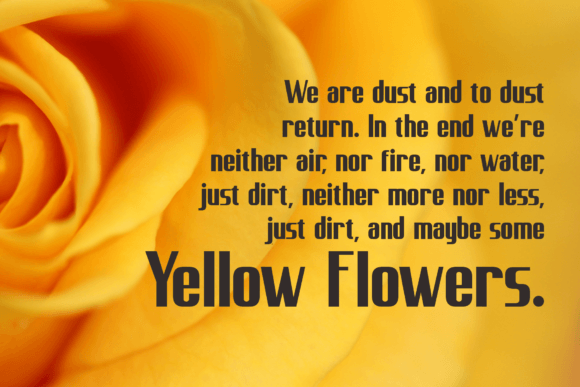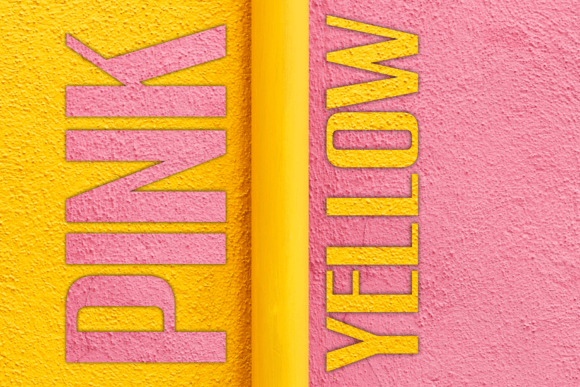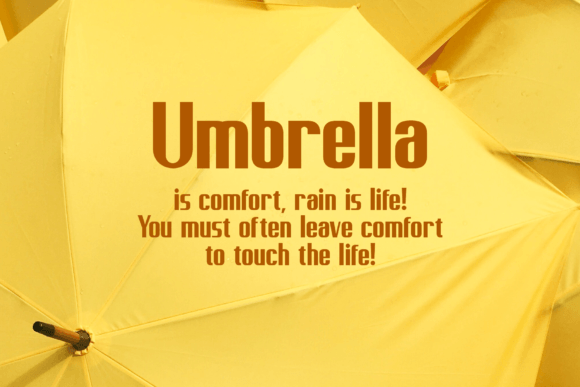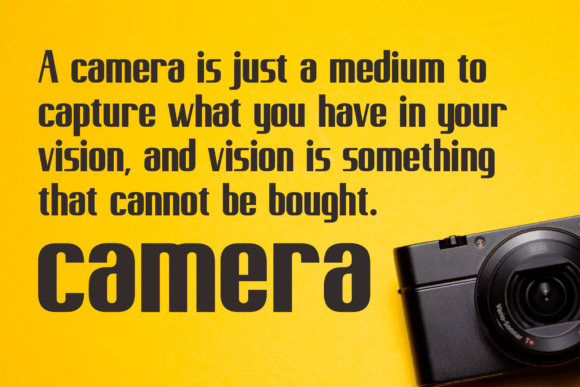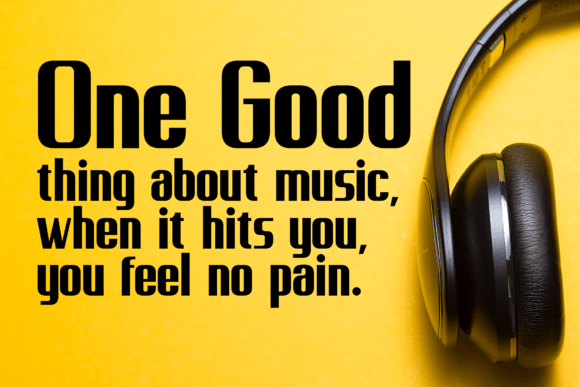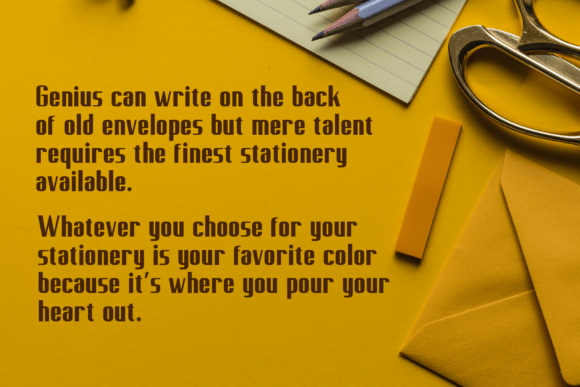
Introduction to La Taverna Font
You’ve spent hours brainstorming ideas for your next design project, pouring over inspiration boards and sketching out concepts. But the moment of truth arrives when you need to select the perfect font to bring your vision to life. That’s where La Taverna Font comes in – a stunning, elegant sans serif font that elevates any creative project with its high-quality design.
Imagine having access to a versatile design resource that can seamlessly integrate into your designs, from logos and branding materials to digital products and print materials. La Taverna Font offers a transparent background, making it perfect for backgrounds and overlays, and is available for free download, making it a valuable addition to any designer’s toolkit.
Key Features of La Taverna Font
- High-quality design resource for creative projects, ideal for use in graphic design, digital art, and publishing.
- Features a transparent background, allowing for seamless integration into designs and reducing visual clutter.
- Designed to be highly legible, with a clear and readable font style suitable for body text, headings, and titles.
Honest Review: La Taverna Font
La Taverna Font is a beautiful, high-quality design resource that has caught my attention. I’ve been experimenting with this font in my latest creative project, and I must say it’s been a game-changer.
Here are some things that work well: ✨ The font’s unique style and elegant curves make it perfect for creating a warm and inviting atmosphere. ✨ The transparent background option allows for seamless integration with any design. ✨ The free download is a huge plus, making it accessible to designers of all levels.
Overall, I’m thoroughly impressed with La Taverna Font. Its high-quality design and versatility make it an excellent addition to any creative project. Whether you’re designing a website, a logo, or a brochure, La Taverna Font is definitely worth considering.
- Unique style and elegant curves
La Taverna Font
La Taverna Font is a versatile and elegant design resource perfect for creative projects that require a touch of sophistication. With its transparent background and high-quality design, this font is a must-have for designers and artists looking to elevate their work.
La Taverna Font is perfect for:
- Restaurant and bar menus.
- Event marketing materials.